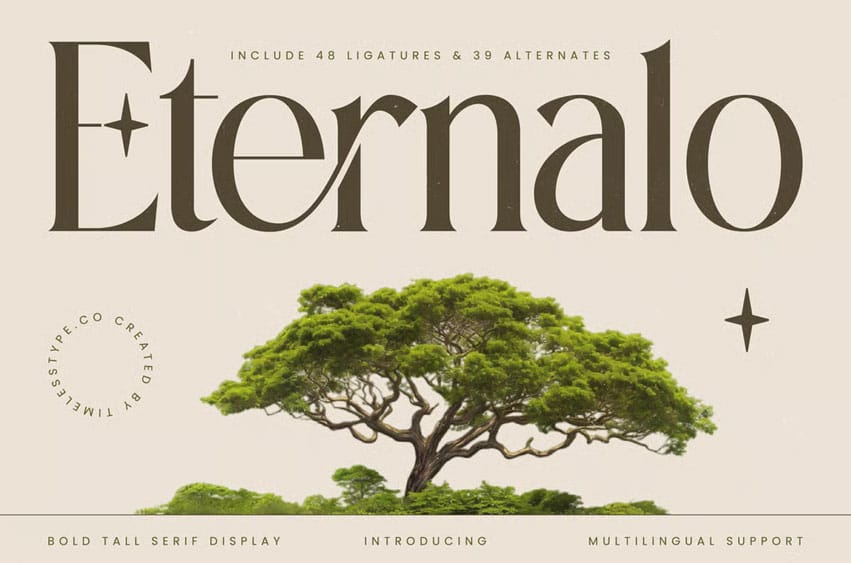
Eternalo Font is a bold, tall serif display font that combines timeless elegance with modern refinement. Featuring 48 ligatures and 39 alternates, this typeface delivers a striking balance of power and grace — ideal for editorial design, branding, packaging, and high-end visual projects that need a bold yet sophisticated personality.
Inspired by classic typography and organic design elements, Eternalo brings structure and warmth together in perfect harmony. Every character is carefully crafted to evoke professionalism, confidence, and enduring beauty across both print and digital designs.